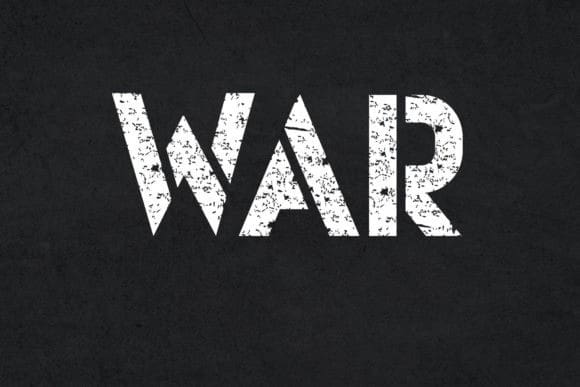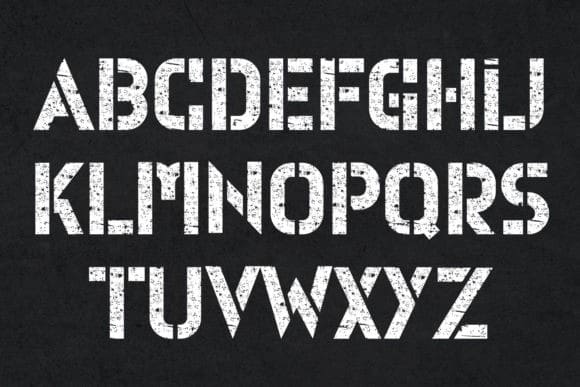
Fight Display Font
Fight Display Font is a cool and bold lettered display font. This font is suitable for designs such as t-shirts, sportswear, logos, advertisements, clothing, and more.